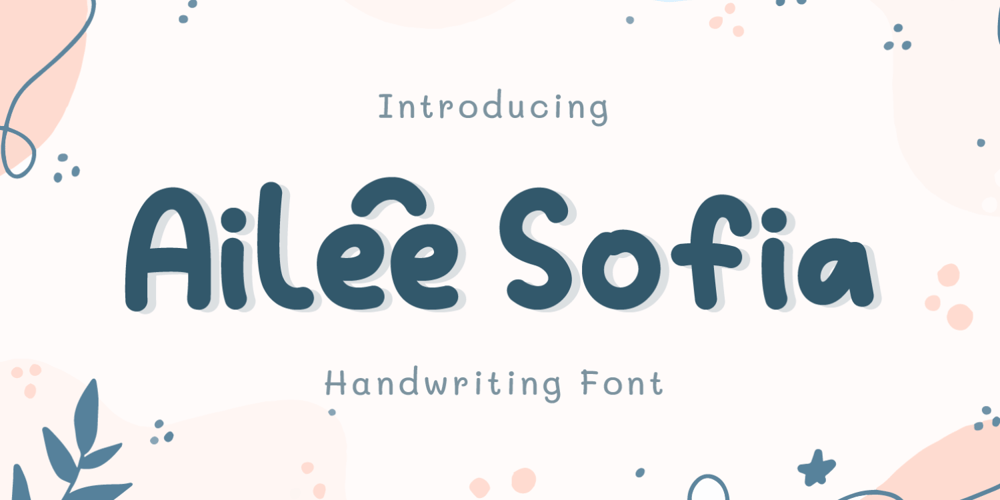
Ailee Sofia Font Family was designed by Miftahul Habib and published by Tlatous Type. Ailee Sofia contains 1 styles and family package options. Introducing Ailee Sofia Font by TlatoustypeAilee Sofia is a Playful Thick Display Font. Ailee Sofia is perfect for book cover, product packaging, branding project, megazine, social media, wedding, or just used to express words above the background.This font also multilingual support.